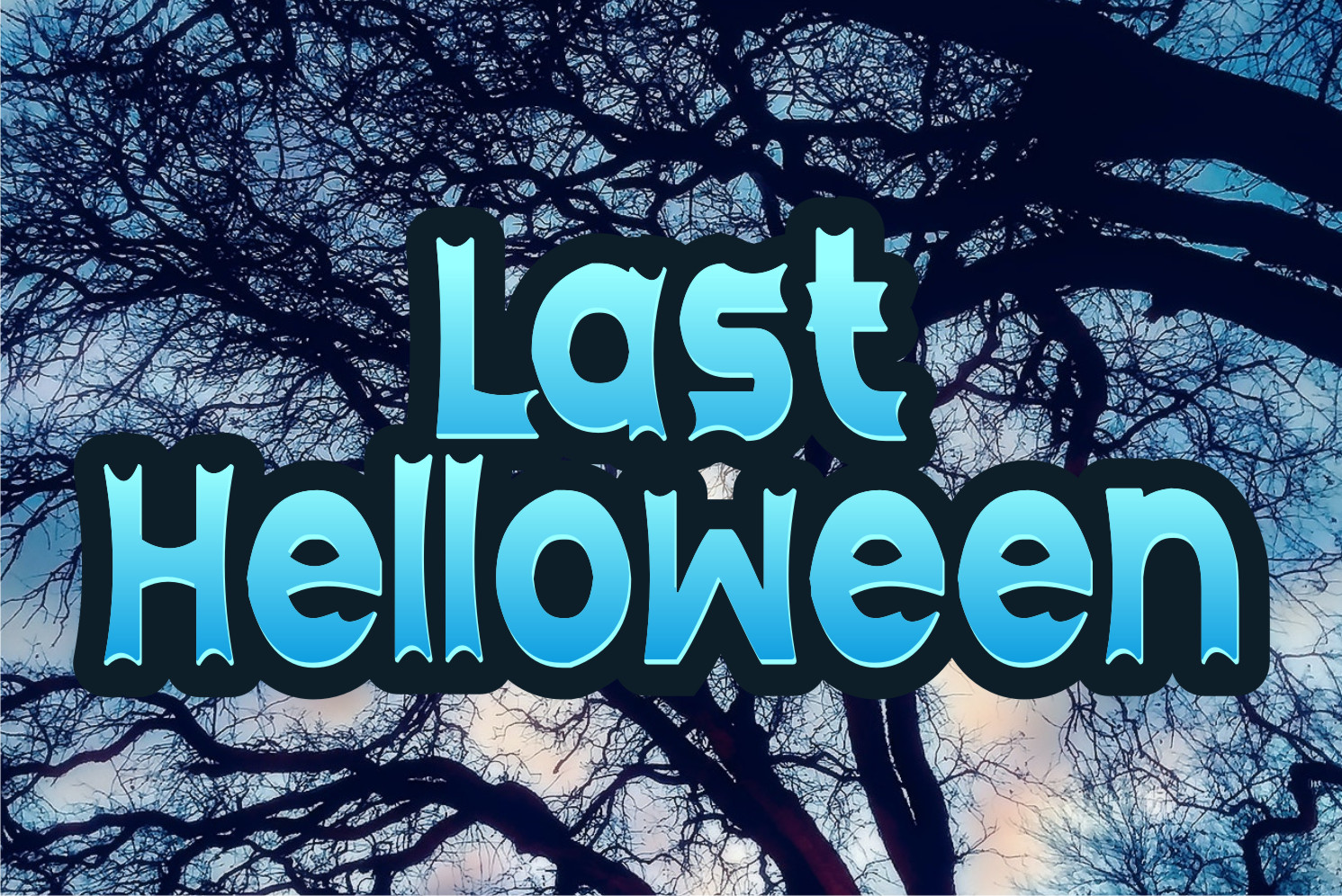
Coffee Halloween Font
Coffee Halloween Display Font
This is a cool, bold and thick lettered display font. This font is suitable for designs such as t-shirts, sportswear, logos, advertisements, clothing, and more.